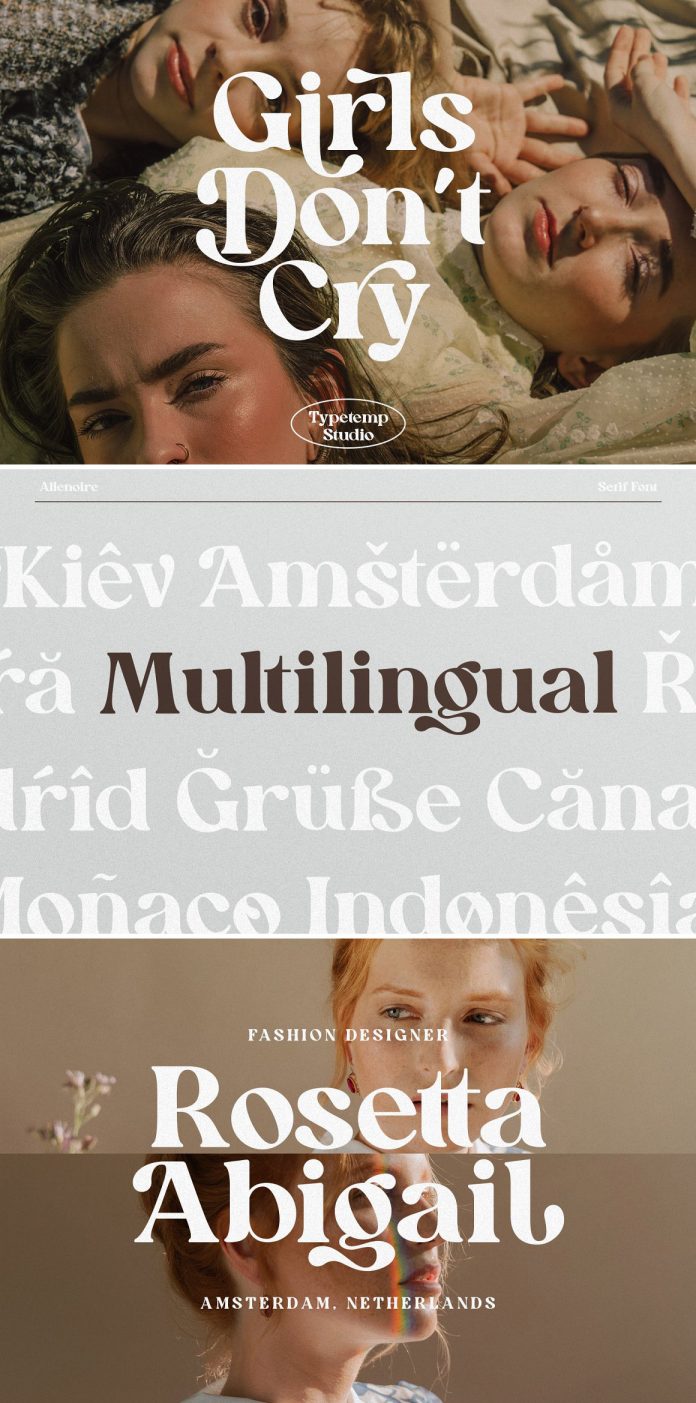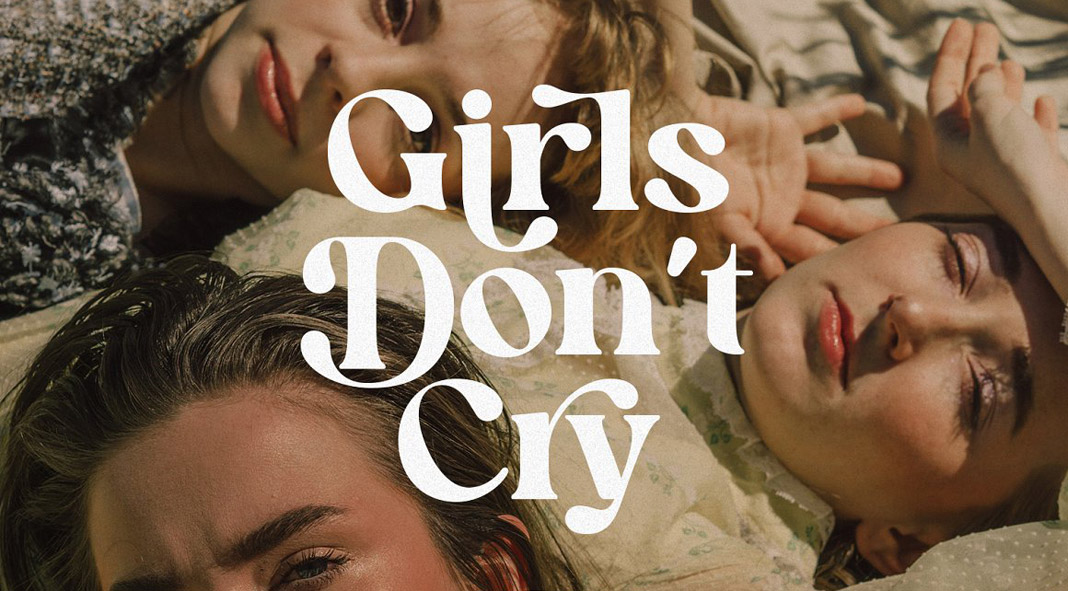
Discover Allenoire, a bold serif font for decorative titles and headlines.
The beautiful Allenoire font was designed and published by Typetemp, a font foundry and graphic design studio specializing in design assets for creative professionals. Allenoire is a bold serif font that comes with a stylish vintage vibe. The typeface is equipped with plenty of alternates and ligatures. You can use the Allenoire font for striking headlines as well as logos, quotes, social media posts, branding projects, magazines, wedding invitations, packaging, and much more.
Allenoire Font by Typetemp Studio